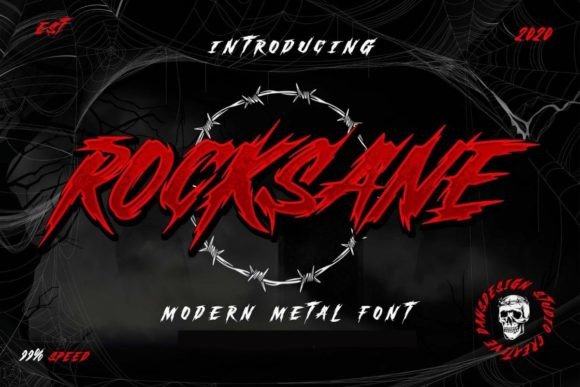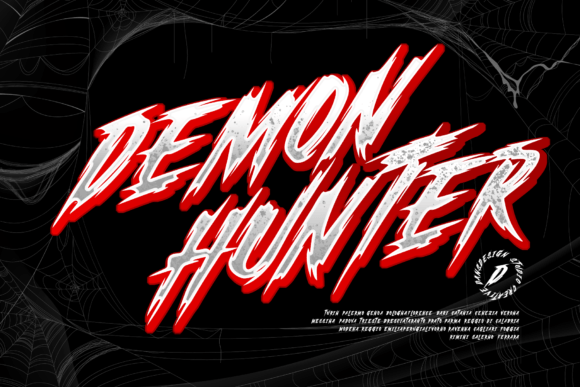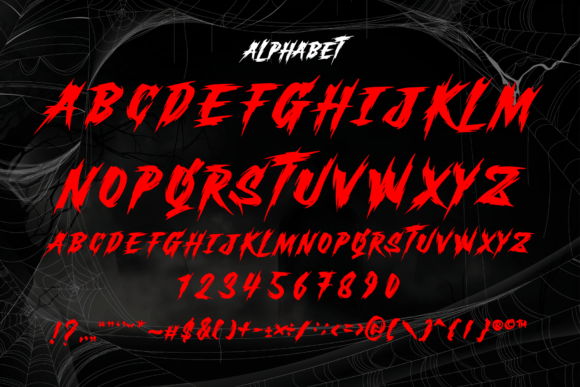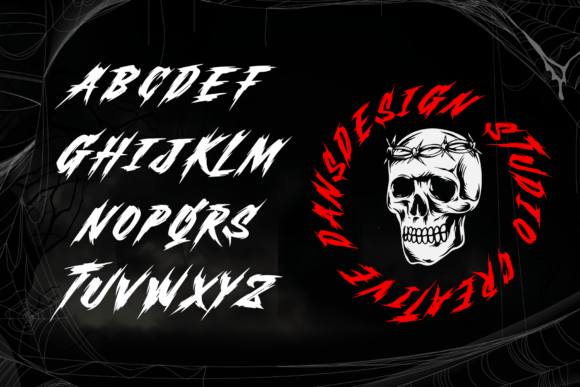
Rocksane Font: Bold Metal Typography for Horror Logo Design
About the Rocksane Font
Elevate your designs with Rocksane Font, a font that combines sophistication with readability. Rocksane is a distinct, highly detailed, Horror Metal Font. It would make a great choice for exquisite retro-urban designs, tattoo business branding, logos, vintage designs, and more.
Rocksane excels in headline treatments, short impactful phrases, and logo design where its detailed character shines. It’s ideal for projects requiring a strong, rebellious aesthetic, such as branding for metal bands, tattoo parlors, or streetwear apparel. Avoid using Rocksane for body text or lengthy paragraphs; its intricate detail would hinder readability.
Pairing Rocksane with a clean sans-serif like Montserrat for body copy creates a strong contrast, balancing the font’s boldness with a legible, modern feel. For a more vintage-inspired approach, a classic serif like Garamond or a slightly distressed serif could be used. A simple geometric sans-serif would add a modern contrast that tones down Rocksane’s intensity.
Its core personality is bold, aggressive, and vintage-inspired, lending itself to brands seeking a powerful and memorable visual identity. Consider pairing it with a script font for added flair in specific applications where a touch of elegance is desired, although caution must be exercised to avoid overwhelming the design.